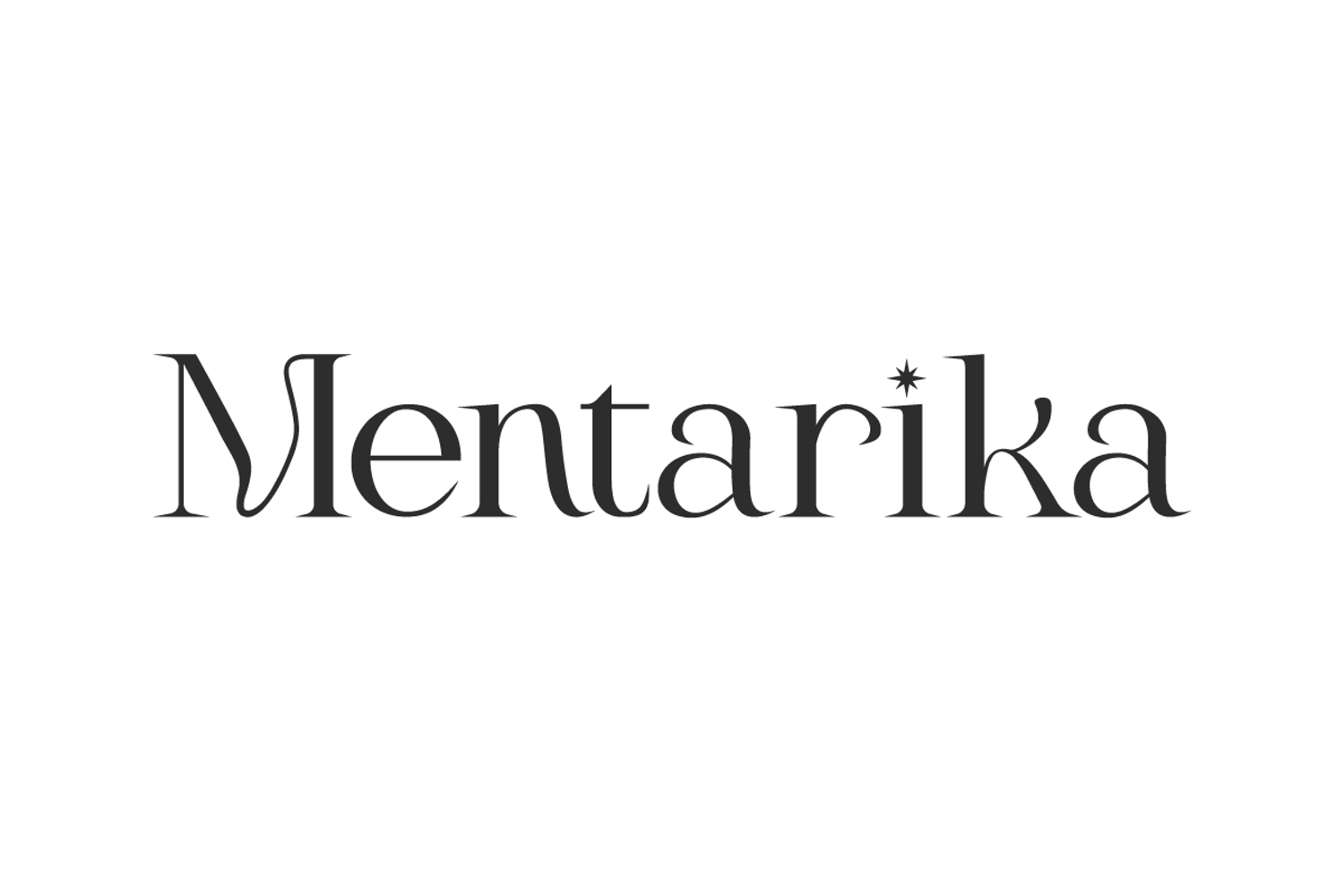
Mentarika Font
Mentarika Font is a contemporer aesthetic serif display font that comes with ensuring the best quality, unique and stands out from the usual serif fonts. It will be perfect for blogs, book covers, greeting cards, headers, invitations, labels, logos, magazines, mockup template, packaging, quotes, signage, stationery, titles, websites, and much more.
Mentarika Font contains a complete set of basic Uppercase and Lowercase characters, Numbers, Symbols and Punctuation. This sophisticated and elegant looking font from a serif base is premium quality and stands out from the usual serif fonts. It’s perfect for artisan, cosmetic, fashion, florist, lifestyle vlogger, restaurant, skincare, spa salon, wedding, and more.